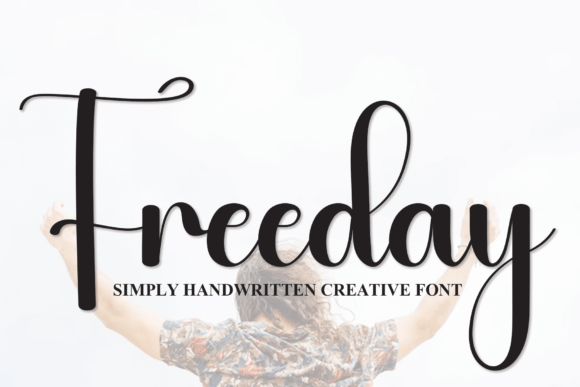
Dive into the world of Freeday Font, a captivating script font that exudes warmth and charm. Experience the magic of handwritten letters, meticulously crafted to bring life to your creative projects. With Freeday, your words will dance off the page, connecting with your audience on a deeper level.
Freeday is more than just a font; it's an expression of your individuality. Its enchanting curves and flowing strokes add a touch of whimsy and elegance to any design. Imagine your wedding invitations adorned with Freeday's graceful letters, carrying the promise of love and joy. Picture your social media posts adorned with Freeday's playful charm, captivating your followers with its infectious energy.
Freeday's versatility knows no bounds. Whether you're designing marketing materials, creating personalized cards, or simply adding a touch of flair to your everyday projects, Freeday will elevate your designs to new heights. Its friendly and approachable nature makes it perfect for a wide range of applications, from cheerful children's books to sophisticated branding materials.
With Freeday, you'll discover a new level of creative freedom. Its smooth, flowing lines lend themselves effortlessly to logos, posters, and website designs. Let your imagination soar as you explore the endless possibilities that Freeday presents.